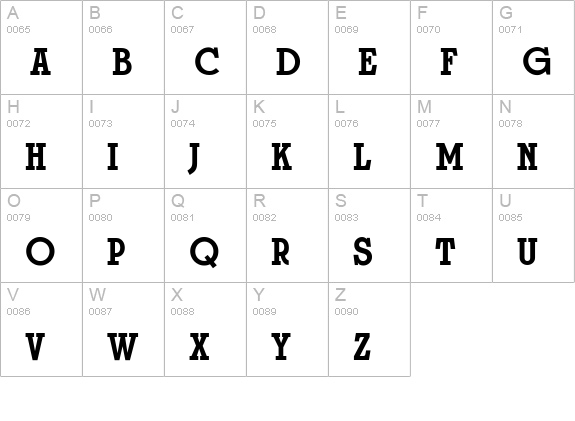
CgStratfordBd Font Details
CgStratfordBd is a bold and commanding font that exudes strength and sophistication. Its sleek and modern design makes it perfect for a wide range of projects, from branding to advertising. With its clean lines and sharp angles, CgStratfordBd commands attention and leaves a lasting impression. This versatile font is freely available for download at FontsMarket.com, making it accessible to all designers and creatives. Whether you're working on a print project, website design, or any other creative endeavor, CgStratfordBd is sure to elevate your work with its bold presence and timeless style. Unlock the potential of your designs with this striking and powerful font.